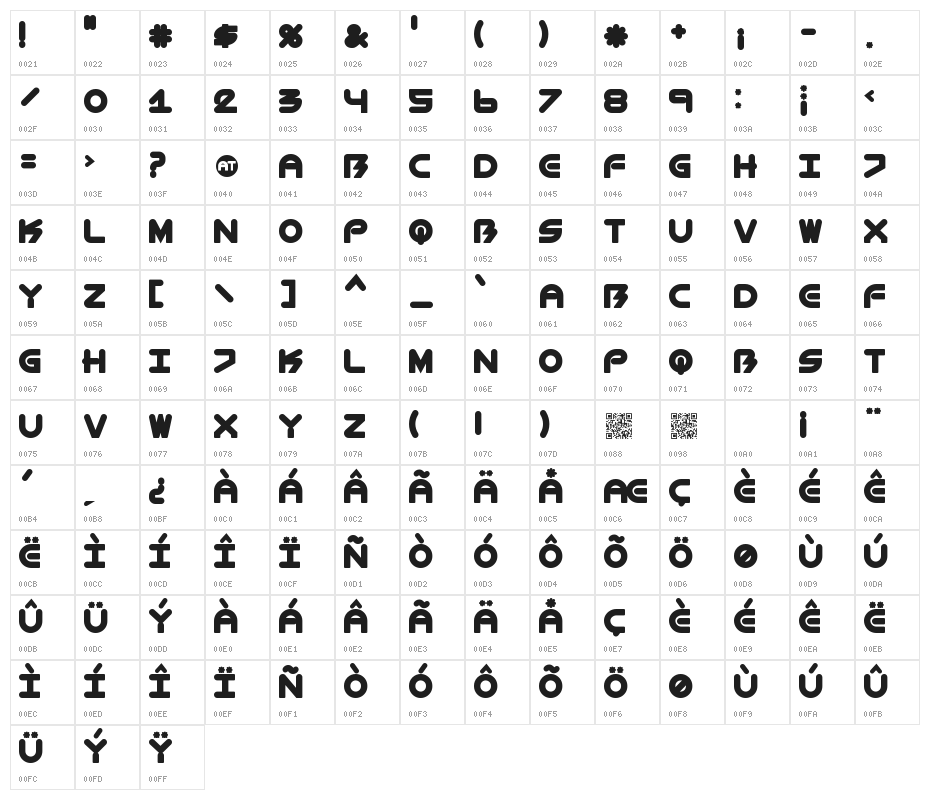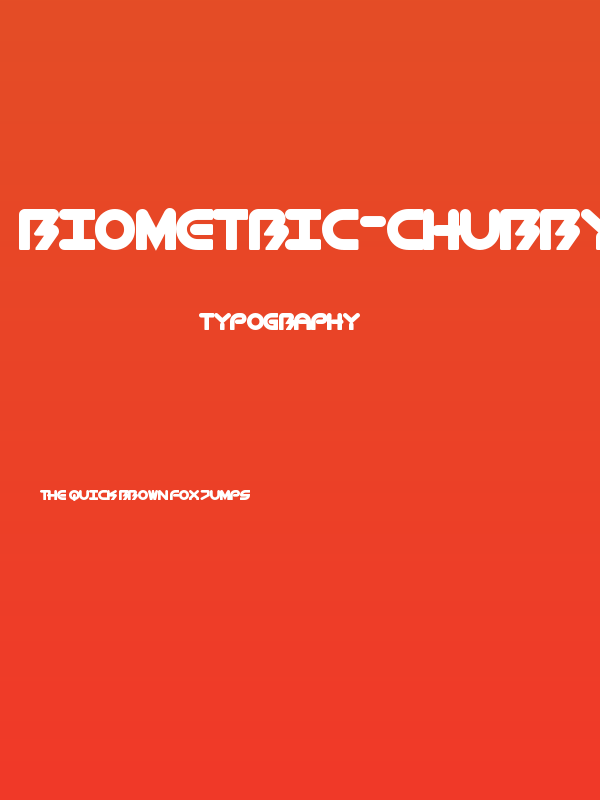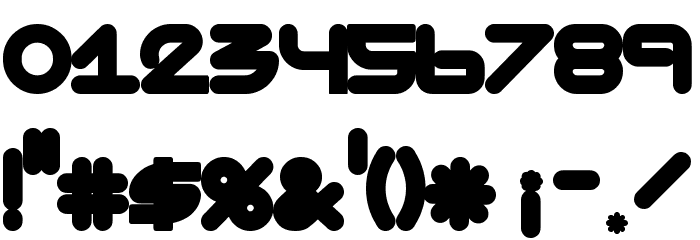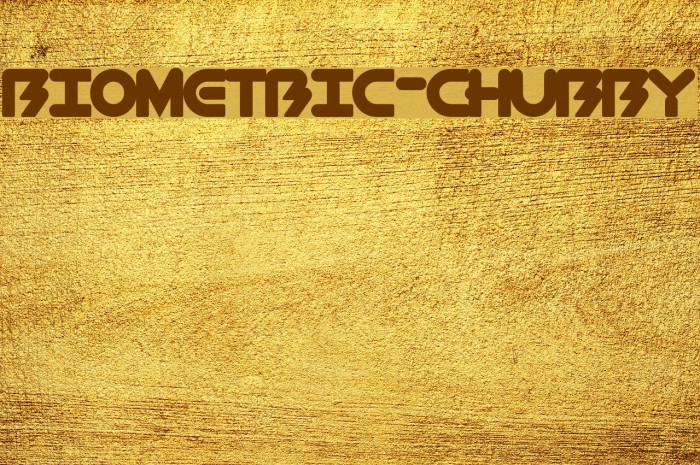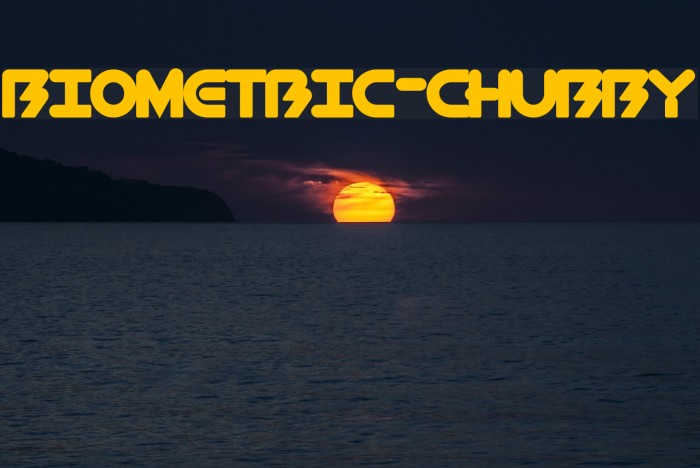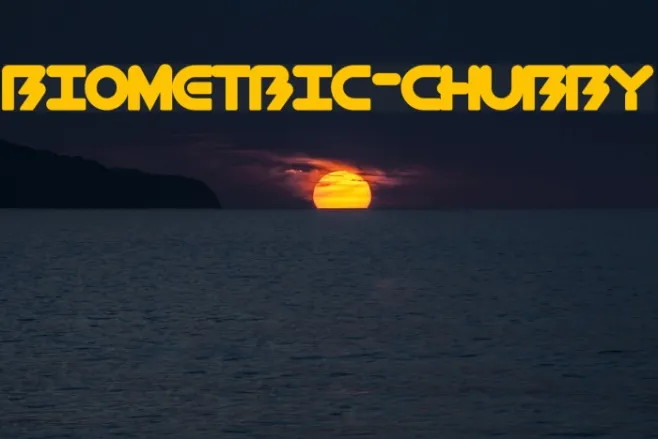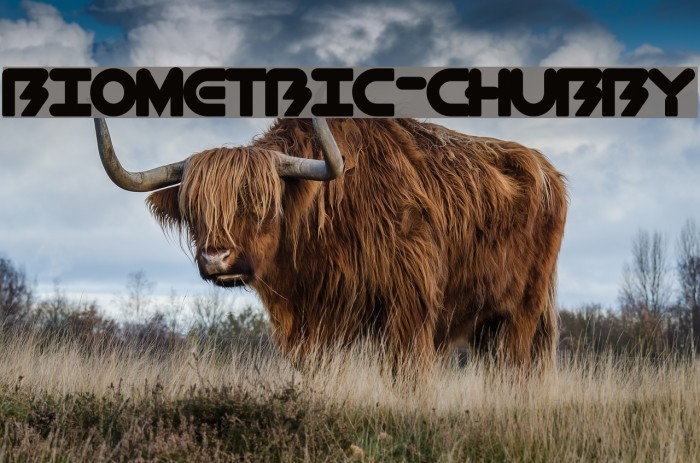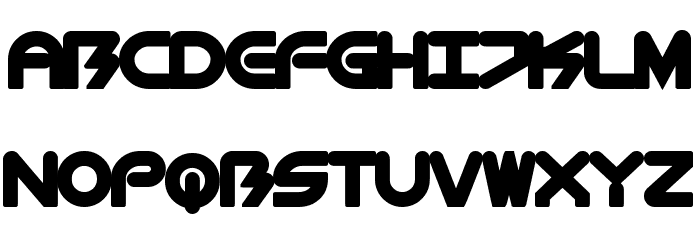
BioMetric-Chubby Font
BioMetric-Chubby Description
This font features a bold and playful design with rounded, chubby characters that convey a sense of fun and modernity. The letters are uniformly thick, giving them a strong presence on the page. The style is geometric, with smooth curves and a consistent stroke width throughout. The uppercase and lowercase letters maintain a cohesive look, while the numerals and special characters complement the overall aesthetic. This font is ideal for projects that require a bold statement, such as branding, posters, and headlines.
| Proposed Projects | Ideal for branding, posters, headlines, and any design needing a bold, playful touch. |